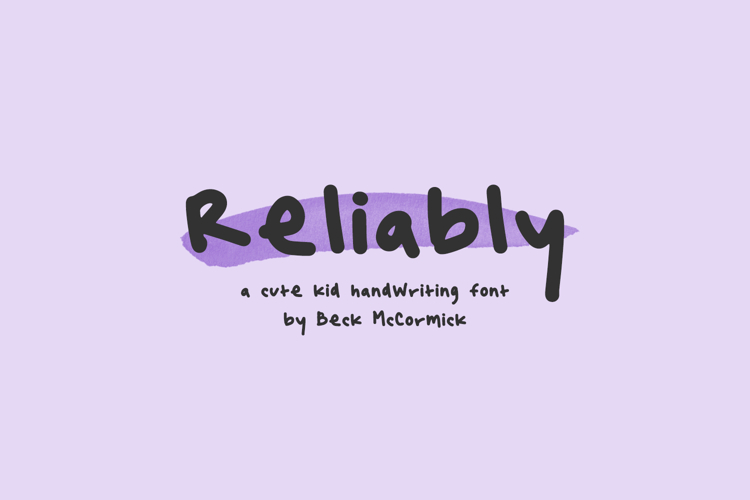
Introducing Reliably Sans, a printed handwriting font.
Reliably is best for:
- cute kid crafty projects with your Cricut or Silhouette machine, or your SVG design business
- using as a reference to teach handwriting & penmanship skills
- logos + branding for kid brands
- digital planners & apps like Goodnotes
- website design + website accents, blog design
- feminine graphic tee shirt design & other apparel